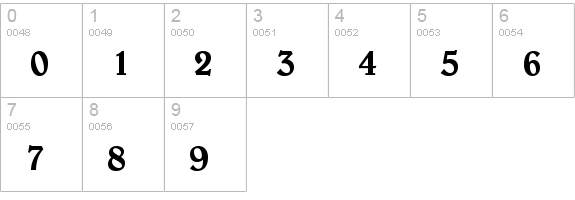
Belwe Medium is a balanced, medium-weight variant in the Belwe typeface family \xE2\x80\x94 well suited to sub-headlines, navigation, and balanced editorial work.
Belwe Medium font is a classic and elegant typeface that exudes sophistication and charm. With its bold strokes and timeless design, it is perfect for creating eye-catching headlines or adding a touch of elegance to your projects. This versatile font is well-suited for a variety of design applications, from branding to editorial design. What makes Belwe Medium font even more appealing is that it is available for free download at FontsMarket.com. This means you can easily access and use this beautiful font in your projects without any cost. Don't miss out on the opportunity to elevate your designs with the timeless appeal of Belwe Medium font, now available for free at FontsMarket.com.